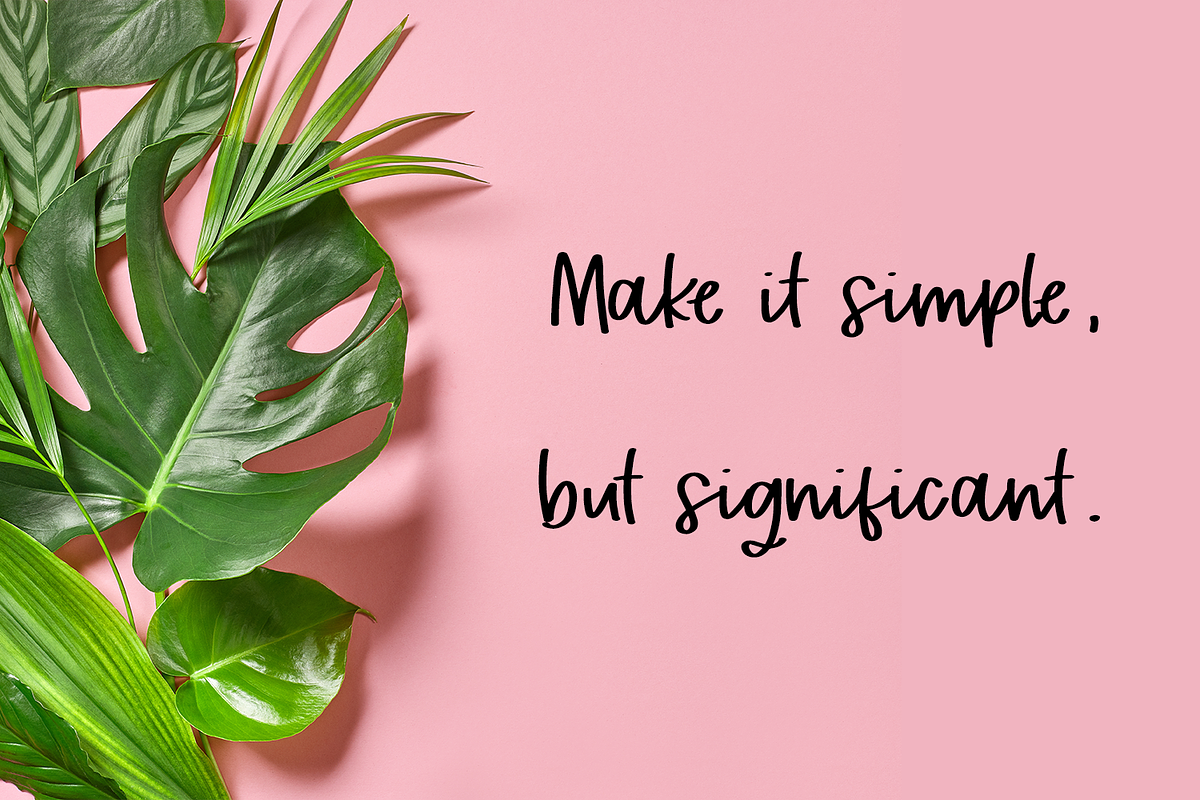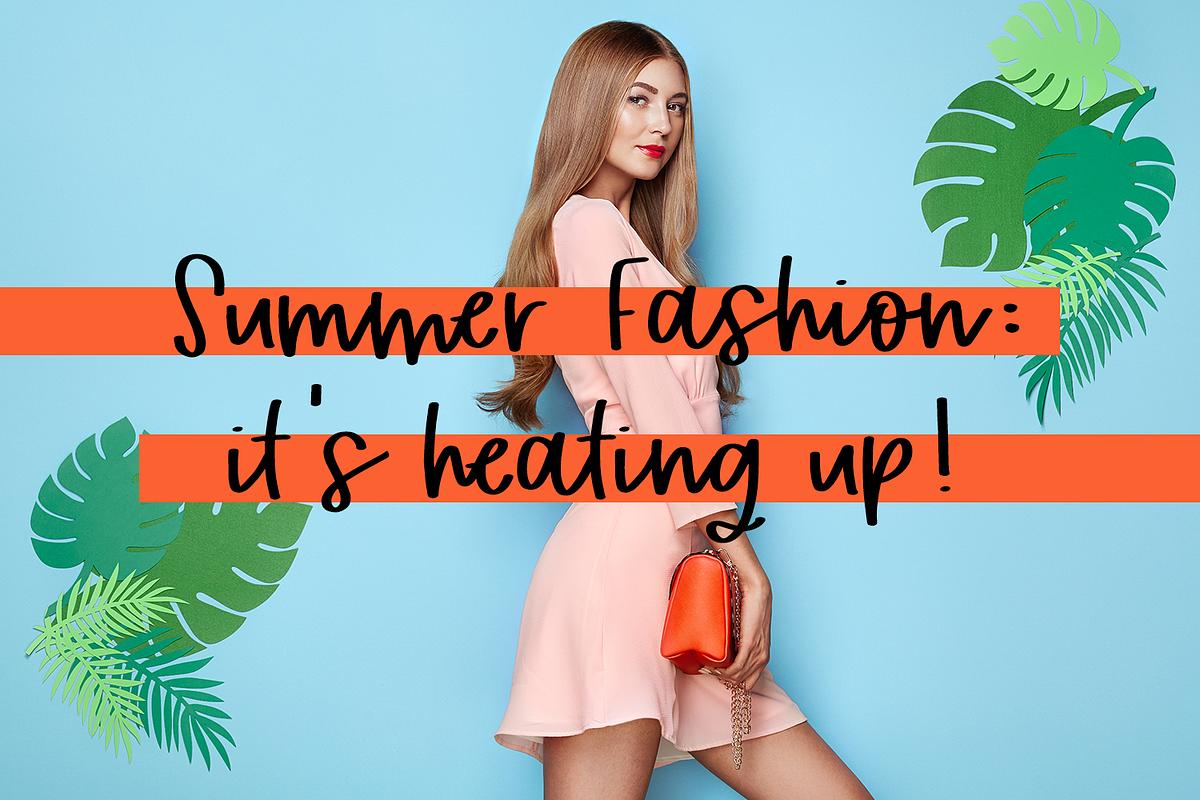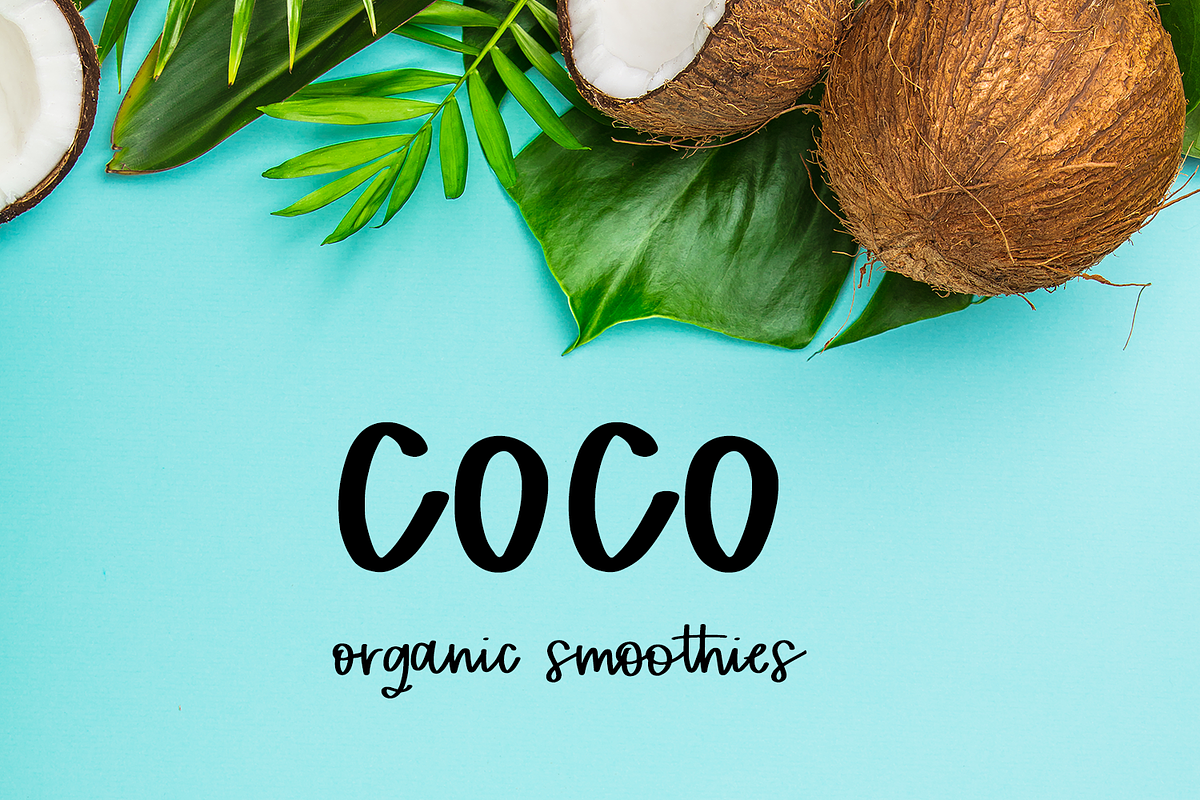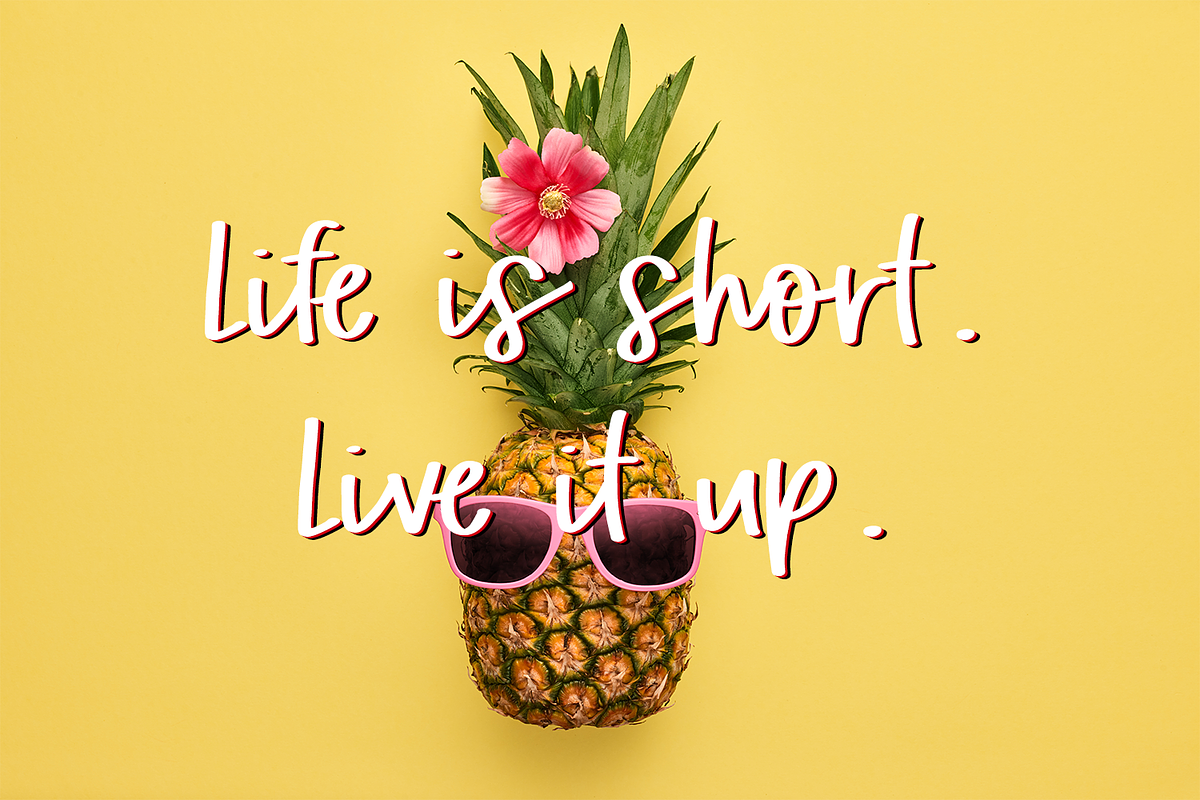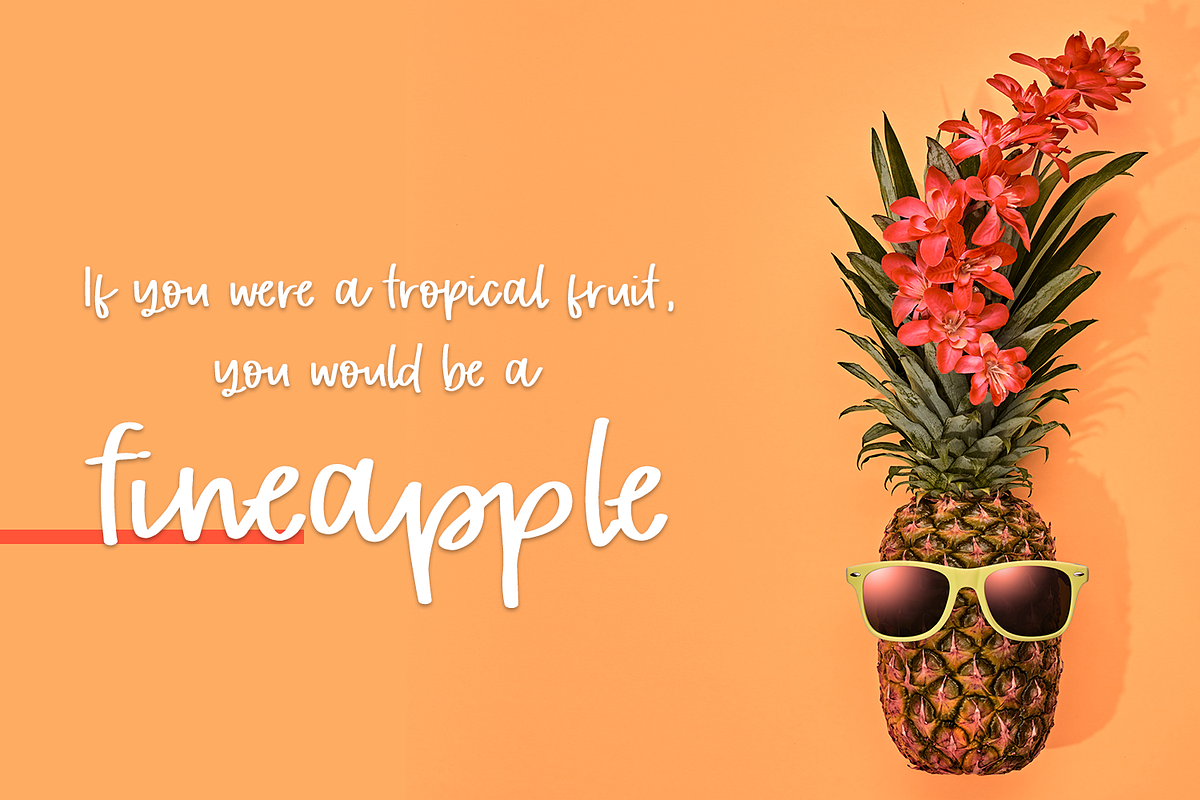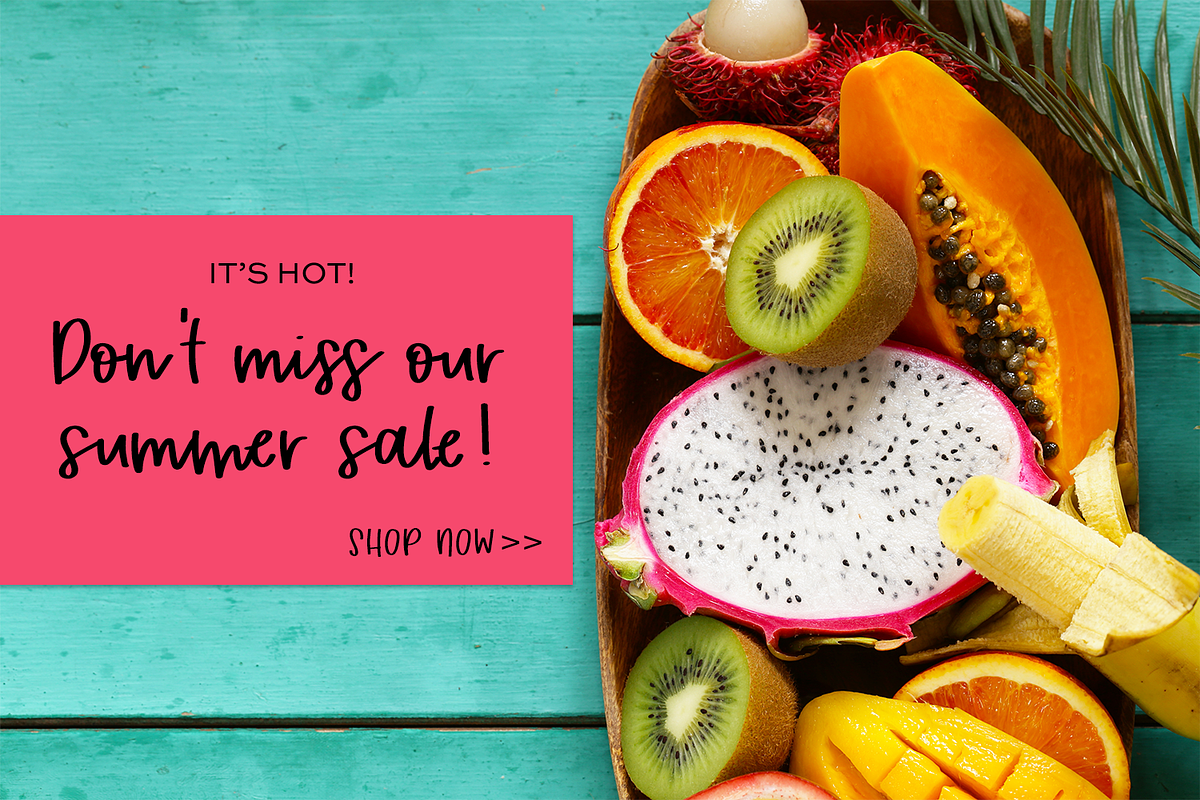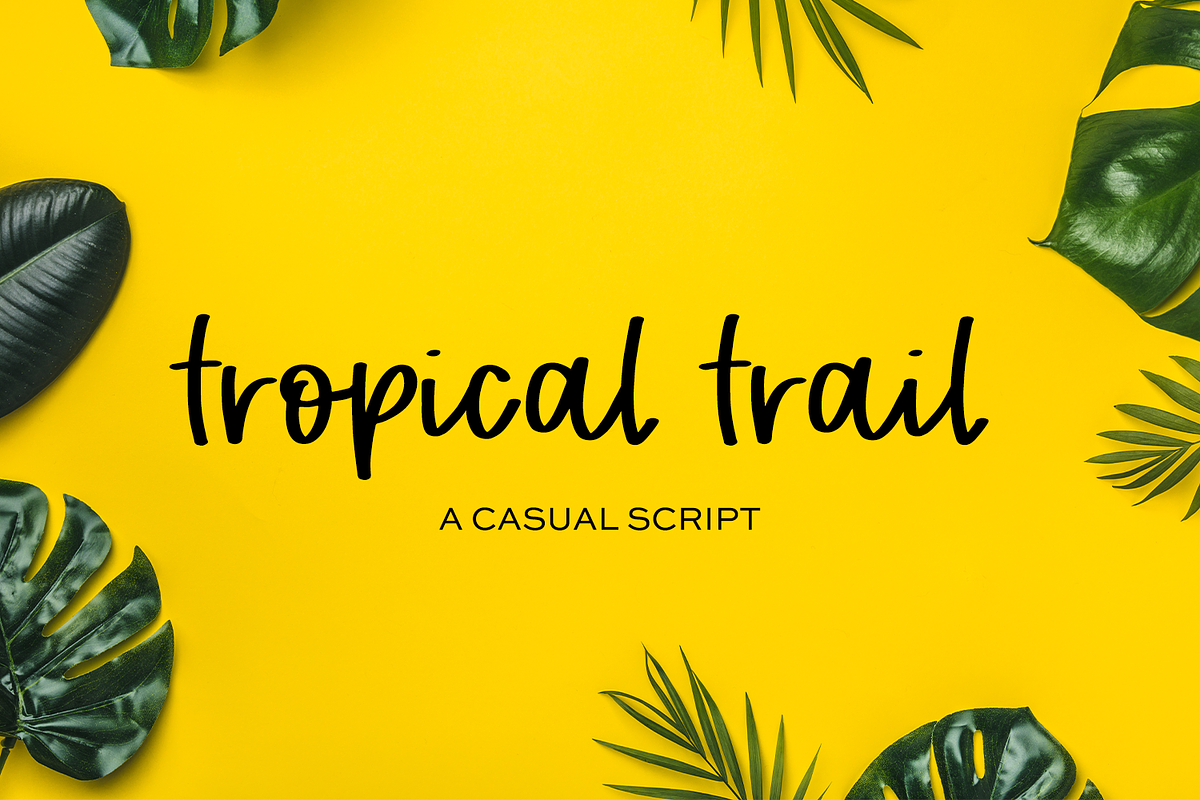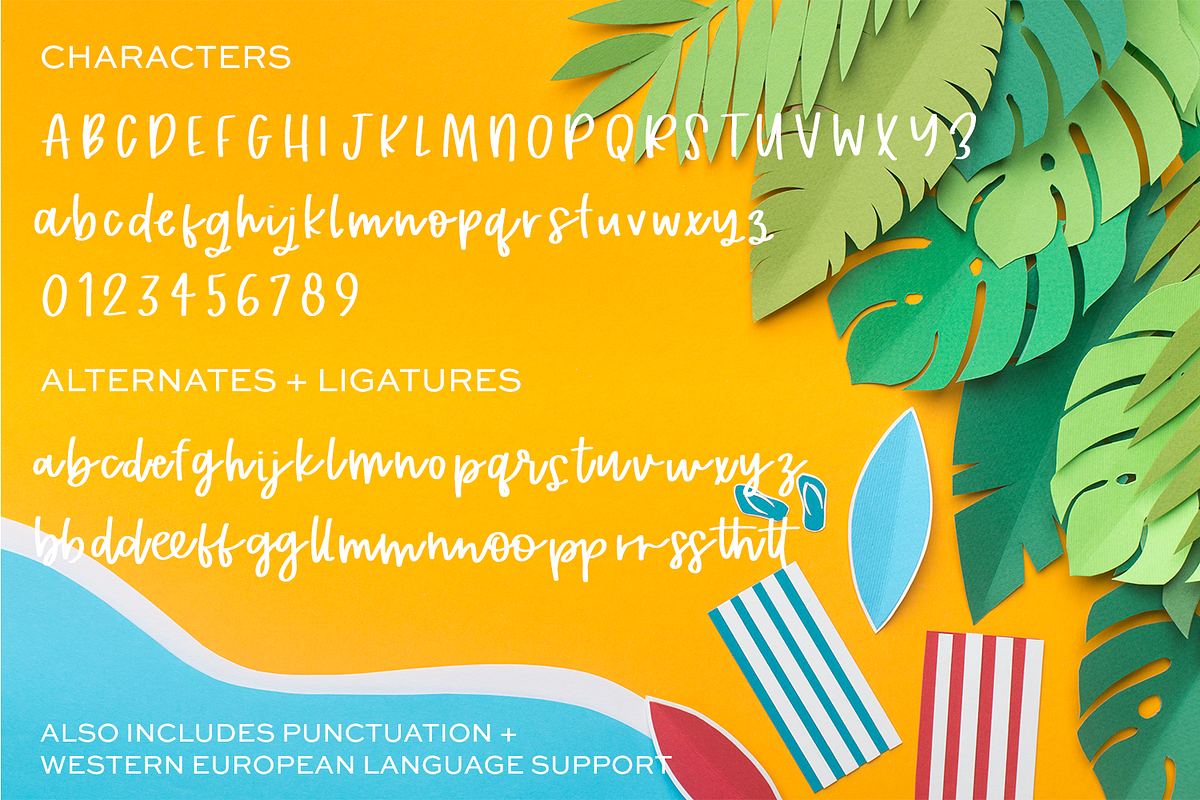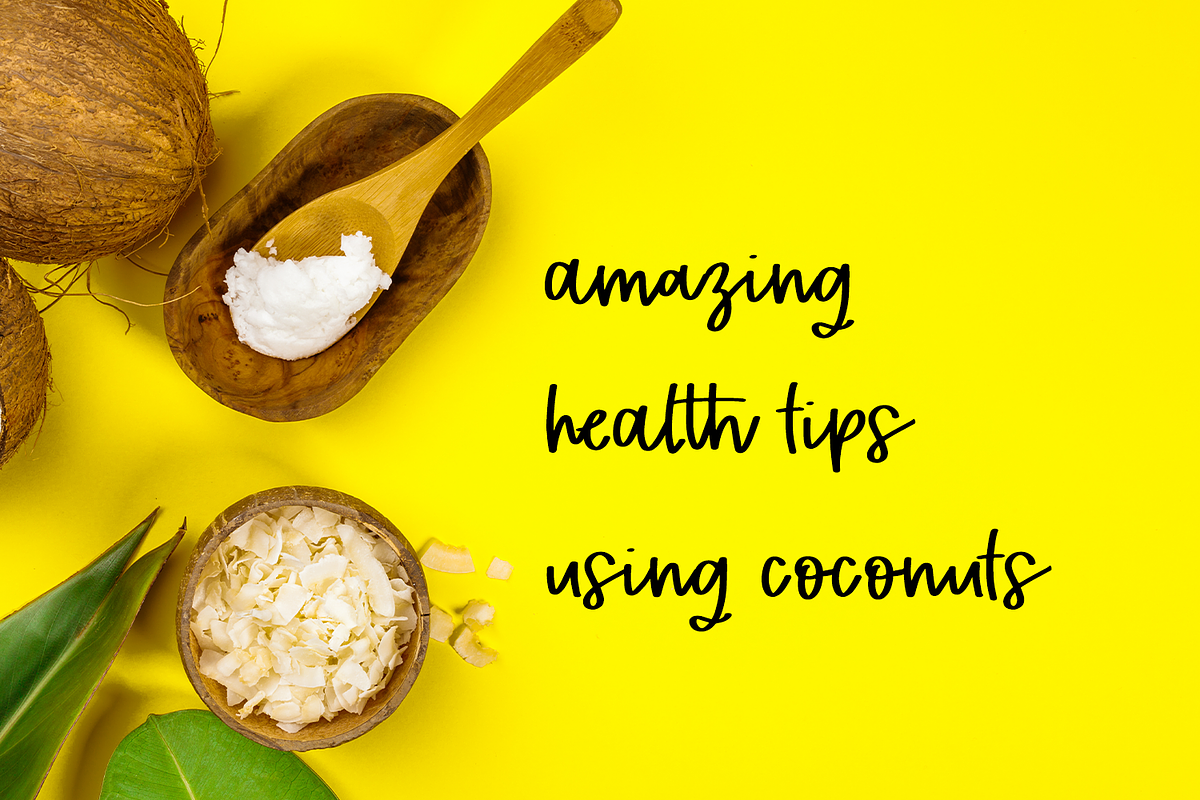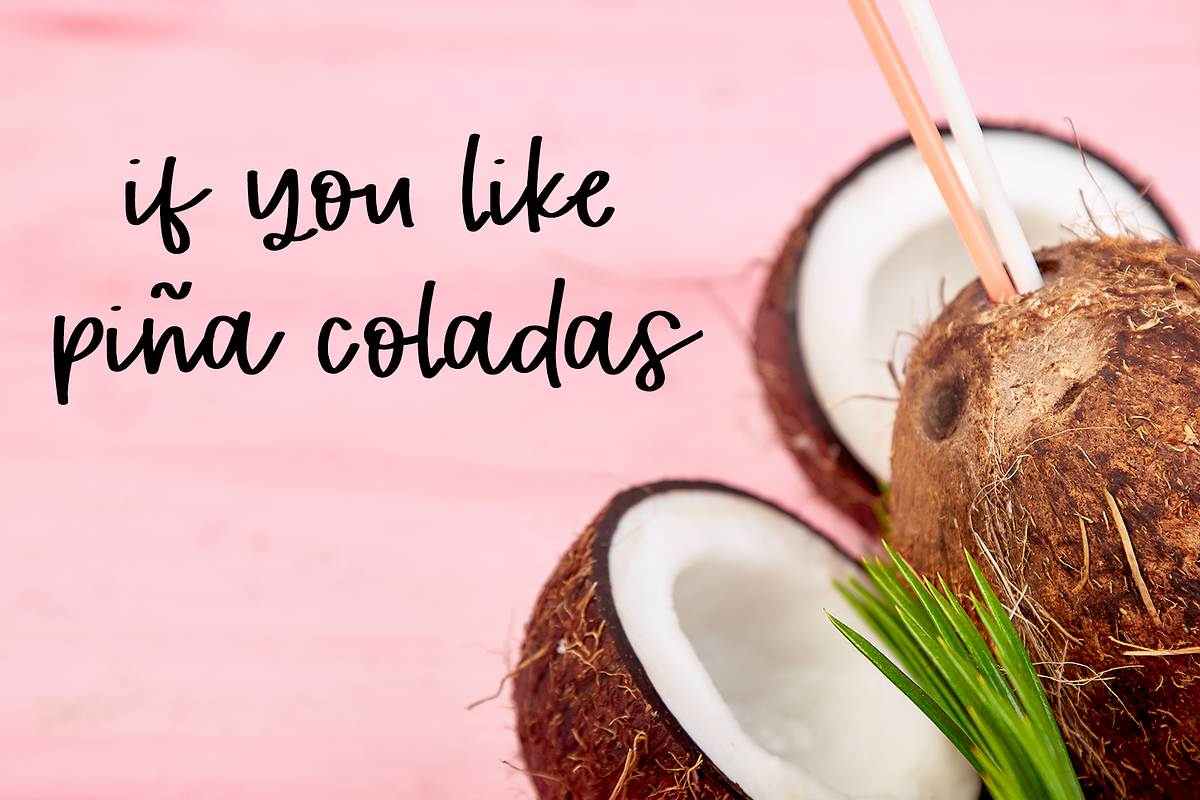
Tropical Trail Script
Tropical Trail Script is an excellent fit for:
- crafting - this font has a super smooth edge, making it an excellent fit for vinyl cutting machines like Silhouette or Cricut
- names or quotes on tumblers & mugs
- creating SVG files for sale
- printable quotes
- shirts
Tropical Trail Script includes:
- full upper + lowercase characters
- numbers + punctuation
- Western European Language Support
- 26 lowercase alternates
- 14 ligature combinations: bb, dd, ee, ff, gg, ll, mm, nn, oo, pp, rr, ss, th, tt